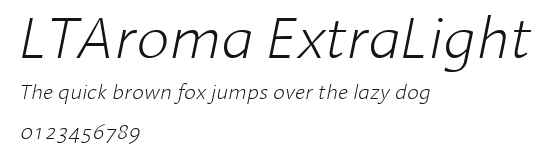
• Font Name: LTAroma ExtraLight
• Full Font Name: Linotype Aroma ExtraLight Italic
• Designer: Tim Ahrens
About LTAroma ExtraLight.ttf
LTAroma ExtraLight.ttf is a modern, elegant sans-serif font designed for ultimate readability and visual harmony. Perfect for branding, headlines, web design, and print materials.